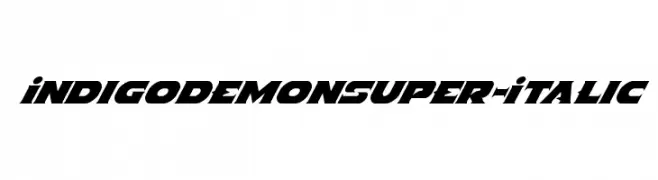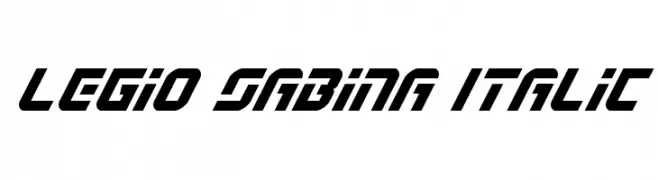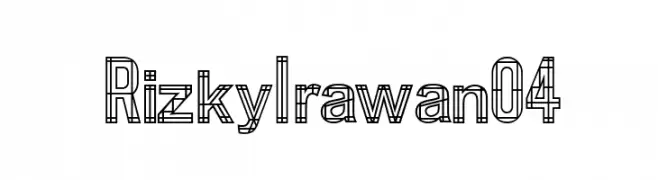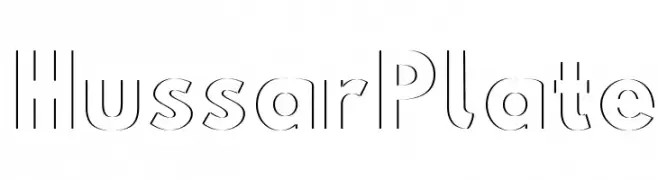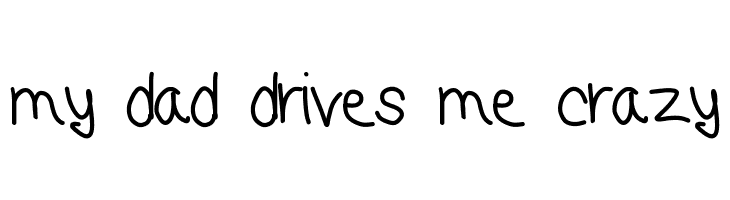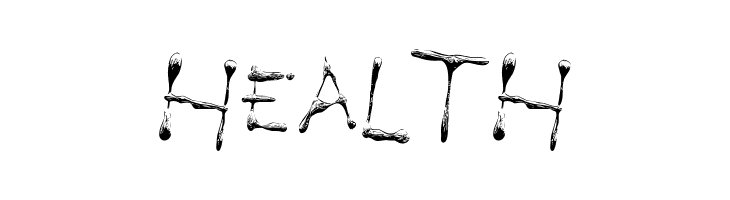
( Harvey Williams - m.youtube.com/user/Hdw1998?feature=guide )
A bold, playful handwritten font with dynamic strokes.
( Iconian Fonts - Daniel Zadorozny - www.iconian.com )
A bold, italicized font with a futuristic and dynamic style.
( RIzky Irawan - www.rizkyirawan90s.blogspot.com )
A bold, layered font with a three-dimensional, geometric design.
A bold, playful font with a shadow effect, perfect for eye-catching designs.
A bold, flowing script font with elegant, interconnected strokes.
A modern, geometric font with a stencil-like design and clean lines.
A bold, italicized font with a futuristic and dynamic style, featuring outlined characters.
A bold, angular font with a dynamic, forward-leaning slant.